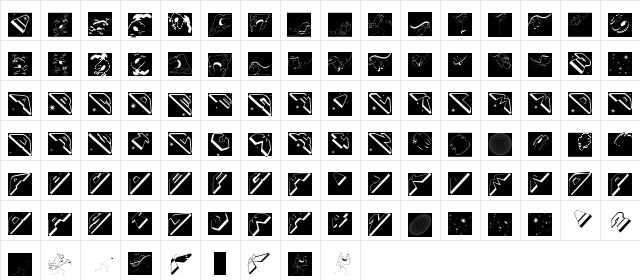
SpaceAttackTwo Regular
Design Context for SpaceAttackTwo Typeface
SpaceAttackTwo is a composed and adaptable typeface that performs quietly and consistently across a wide range of design contexts.
Pro Tip: Use SpaceAttackTwo in both headline and body roles to test its range before committing to a single application.